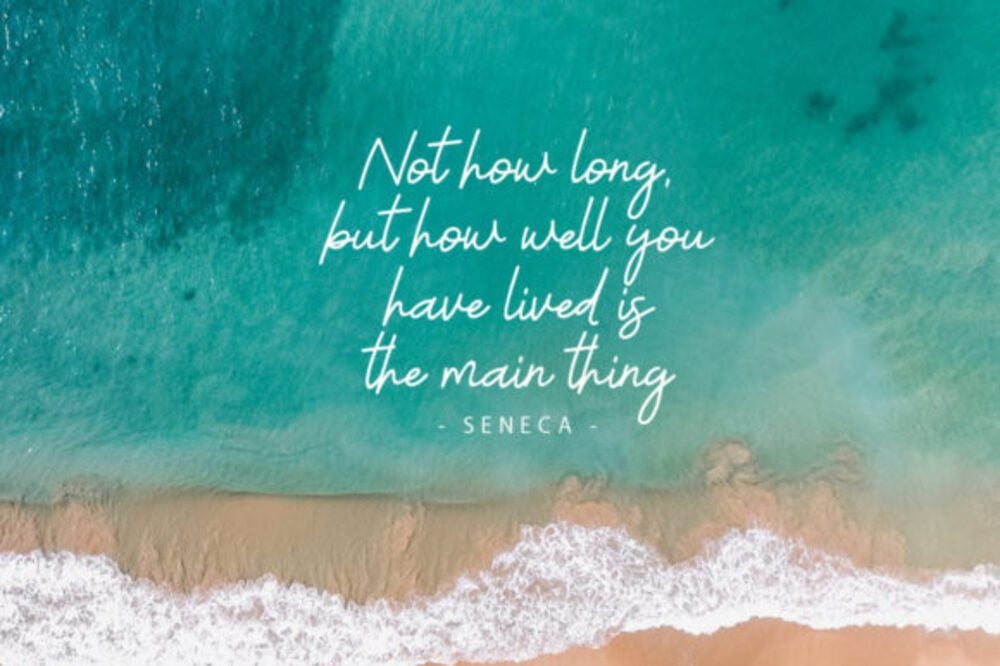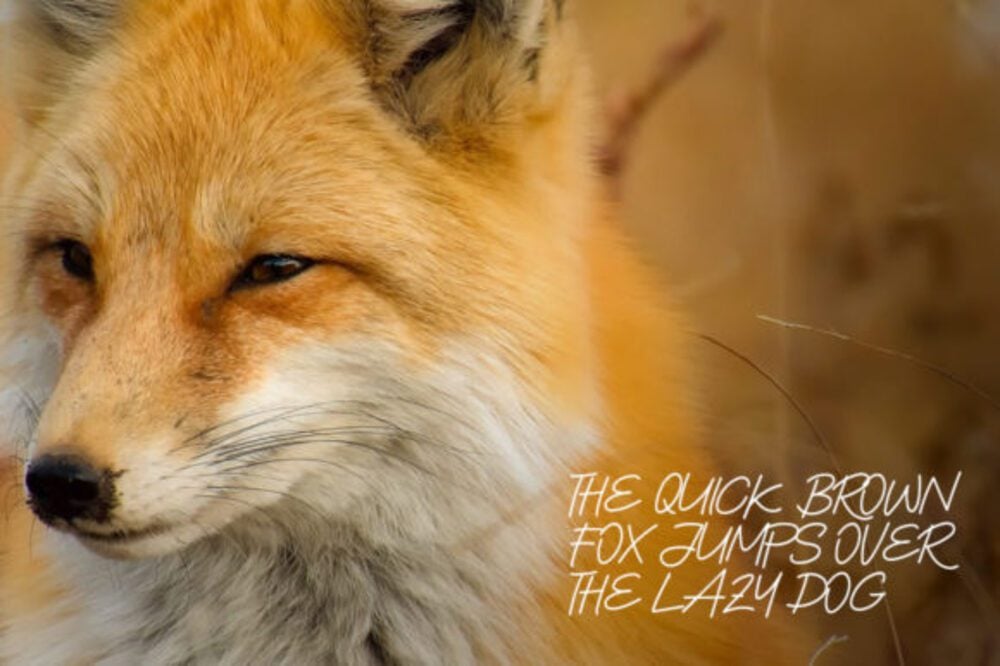
Rumpi Font
Rumpi is a fun and bubbly font that exudes energy and playfulness. Its round, soft edges and whimsical character make it perfect for designs that need a lively and approachable touch. Ideal for children’s books, party invitations, and cheerful branding, Rumpi brings a sense of joy and lightheartedness to any project. Its unique and friendly design ensures your creations stand out with a delightful, carefree vibe.